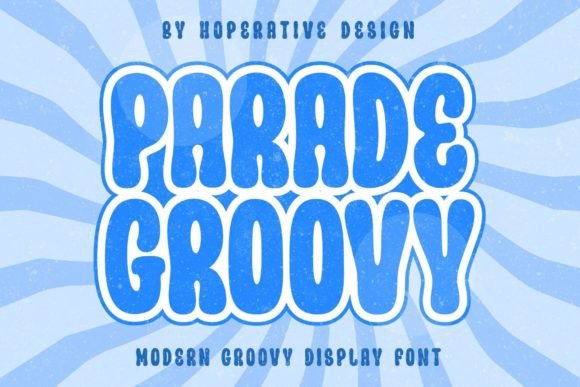
Introducing Parade Groovy Font - the best font for vintage t-shirts that you won't want to miss! Created by Hoperative Design, this modern and groovy display font is perfect for anyone looking to add a touch of retro flair to their designs.
With its unique and eye-catching style, Parade Groovy Font is perfect for creating t-shirts that will make you stand out from the crowd. Whether you're looking to create a vintage-inspired design or something a little more modern, this font is sure to impress.
But it's not just t-shirts that Parade Groovy Font is great for - it's also perfect for stickers, cover books, children's books, social media posts, invitations, and so much more! With its versatility, this font is sure to become a staple in your design arsenal.
So why should you download Parade Groovy Font? Well, not only does it offer a unique and eye-catching style that's perfect for vintage t-shirts, but it also allows you to create a wide variety of designs with ease. Plus, with its modern and groovy feel, this font is sure to capture the attention of anyone who sees it.